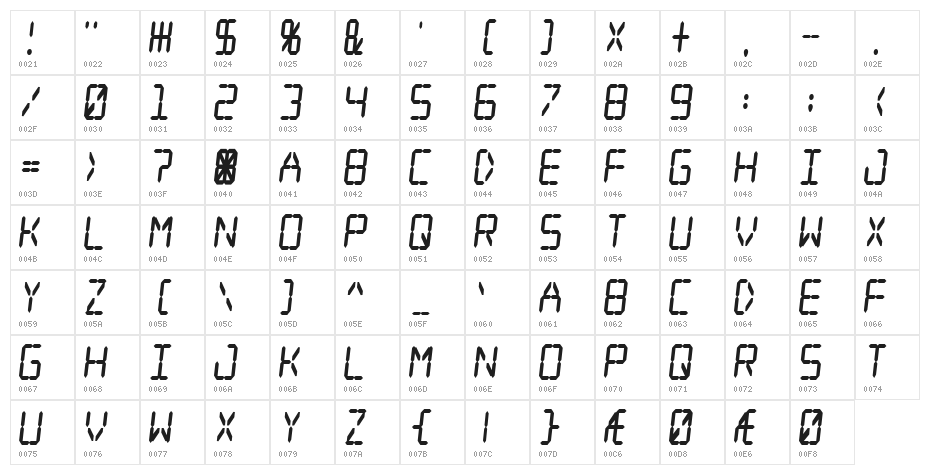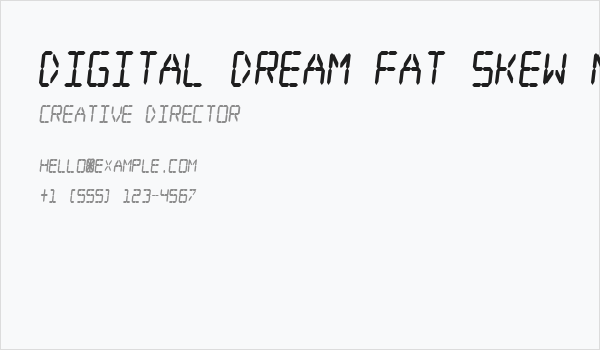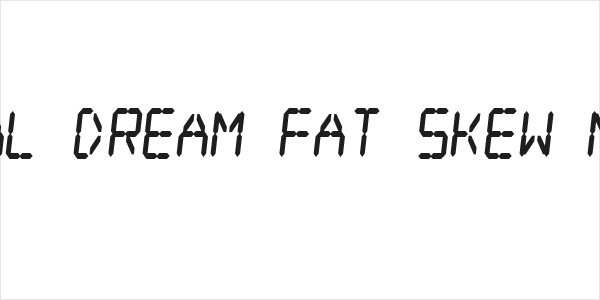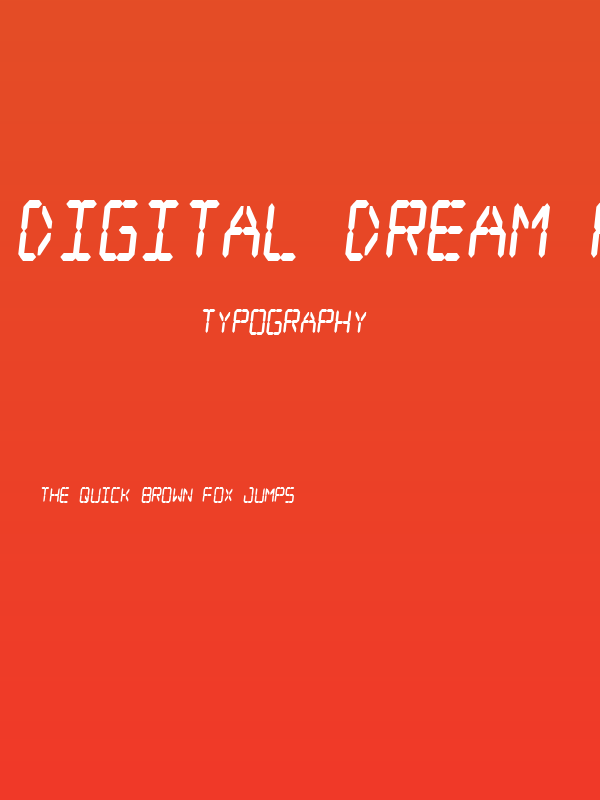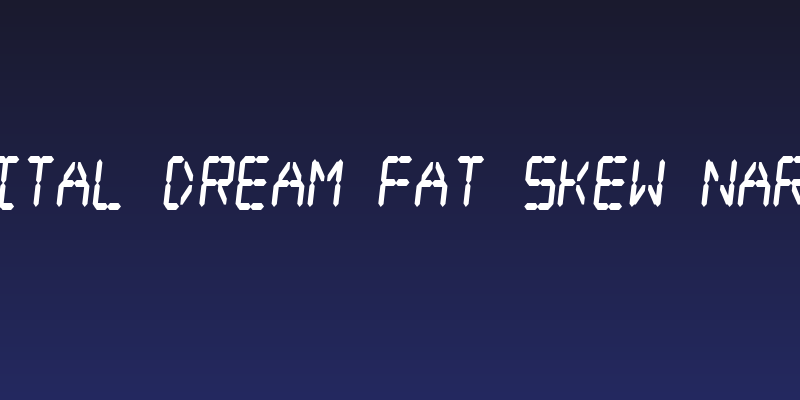
Digital dream Fat Skew Narrow Font
Digital dream Fat Skew Narrow Description
This font features a digital, futuristic style with a skewed and narrow appearance. The characters are composed of bold, geometric shapes that mimic the look of digital displays. The uppercase and lowercase letters maintain a consistent height, giving the font a uniform appearance. The numbers and special characters follow the same design principles, ensuring a cohesive look across all glyphs. The font's angular and segmented design is reminiscent of early digital clocks and calculators, making it ideal for projects that require a tech-savvy or retro-futuristic aesthetic.
| Use Case | Headlines, Logos, Digital interfaces |
| Proposed Projects | Ideal for tech-related projects, digital interfaces, retro-futuristic designs, and branding that requires a modern, digital aesthetic. |